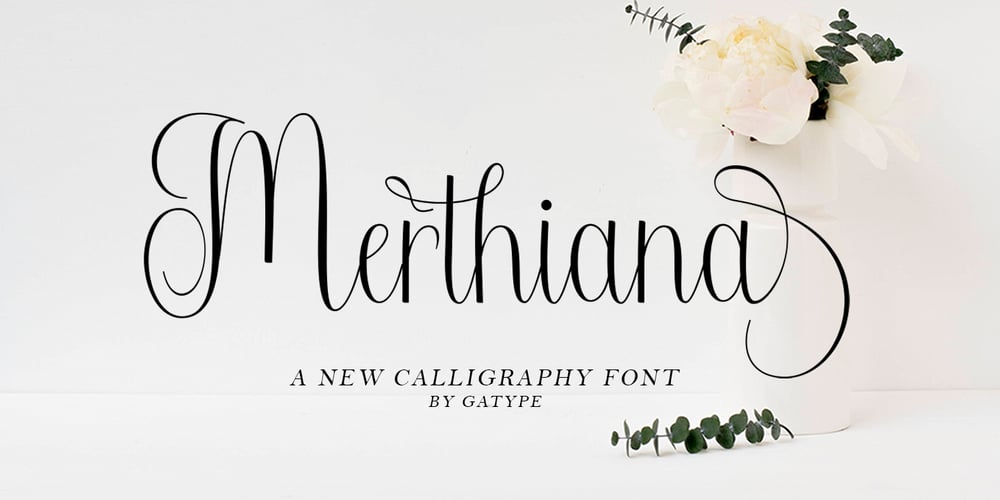
Merthiana Font Family was designed by khaidir and published by Gatype. Merthiana contains 1 styles and family package options. Merthiana is a modern calligraphy design. This font is elegant and beautiful with a stroke. Can be used for various purposes. such as logos, product packaging, wedding invitations, branding, headlines, signage, labels, signatures, book covers, posters, quotes and much more. Merthiana is encoded with PUA Unicode, which allows full access to all additional characters without having to design special software. Mac users can use Font Book , and Windows users can use Character Map to view and copy any additional characters to paste into your favorite text editor/application.How to access all alternative characters, using the Windows Character Map with Photoshop:https://www.youtube.com/watch?v=Go9vacoYmBwThank you very much for viewing and Enjoying it.